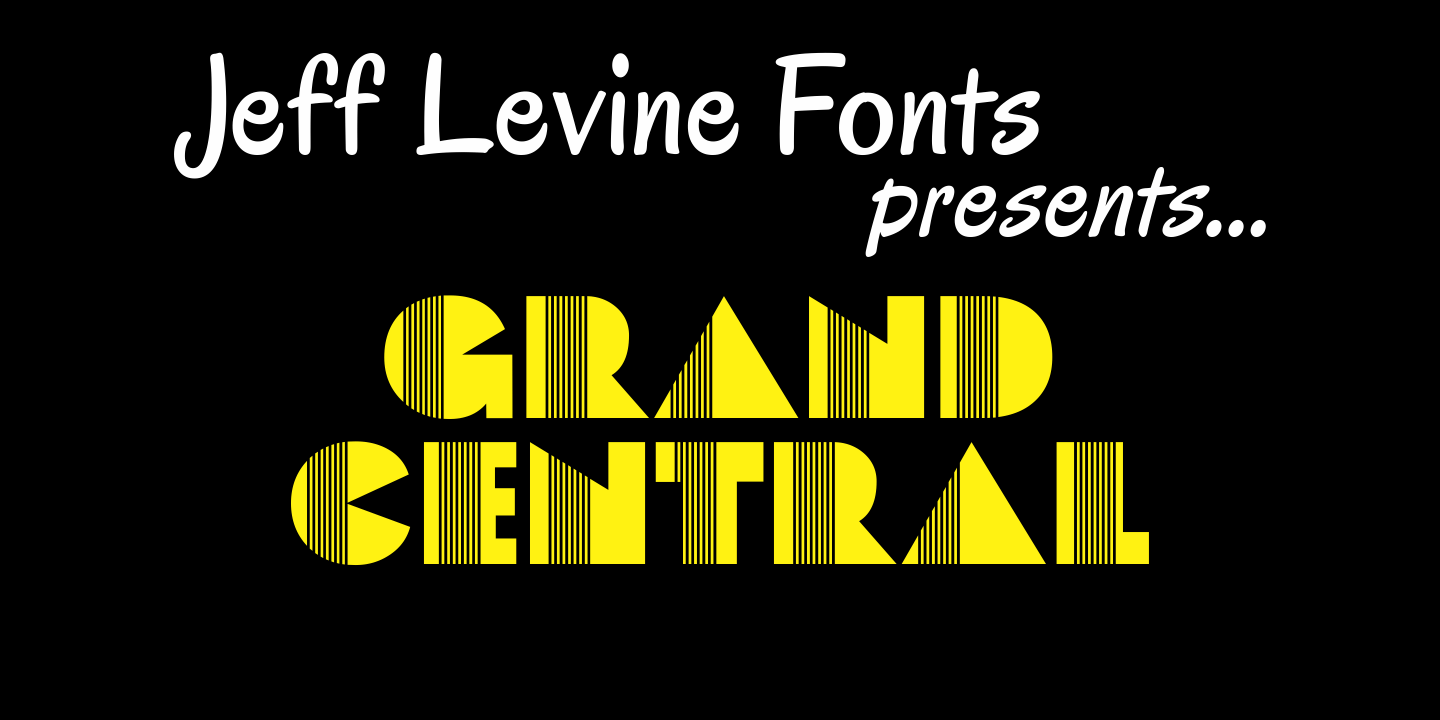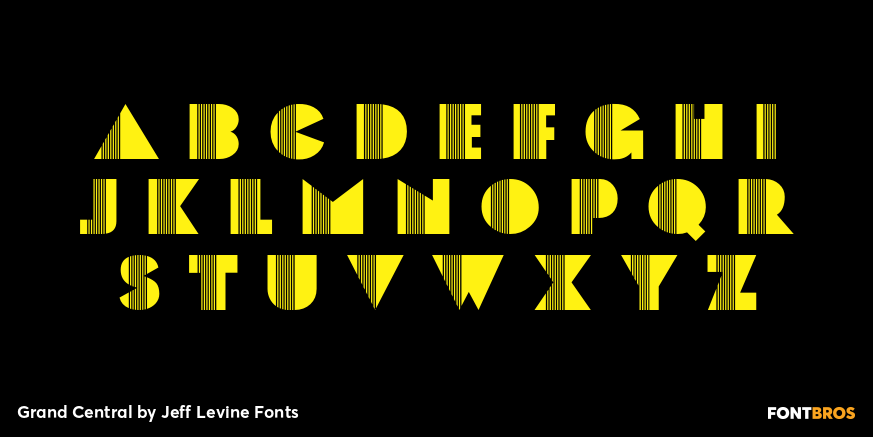
Grand Central
Grand Central JNL is named for the most luxurious train depot in the nation – Grand Central Station in New York City. This multi-line Art Deco font is reminiscent of all of the glitz and glamour associated with Manhattan in the 1930s and 1940s.
Modeled from Jeff Levine's Parkitecture JNL, its roots go back to the popular typeface best known as Eagle – a lettering design most associated with the NRA posters of the Depression era.